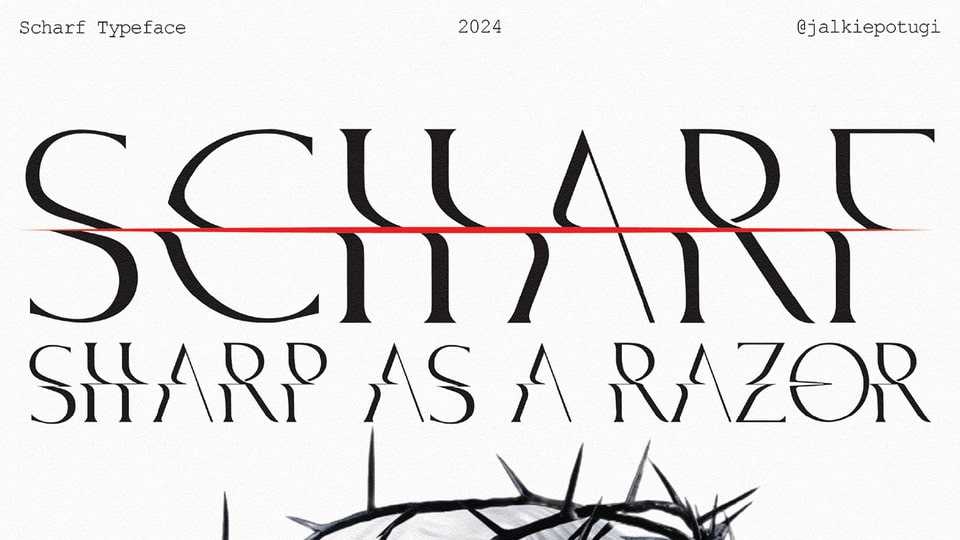
MyScharf Font › Fontesk – Download Grátis
Download MyScharf font, a modern serif typeface with sharp, razor-like details that bring a cutting-edge look to your designs. MyScharf font features precise and angular lines, creating a striking typographic experience that exudes contemporary sophistication.
Designer: Artem Saranow